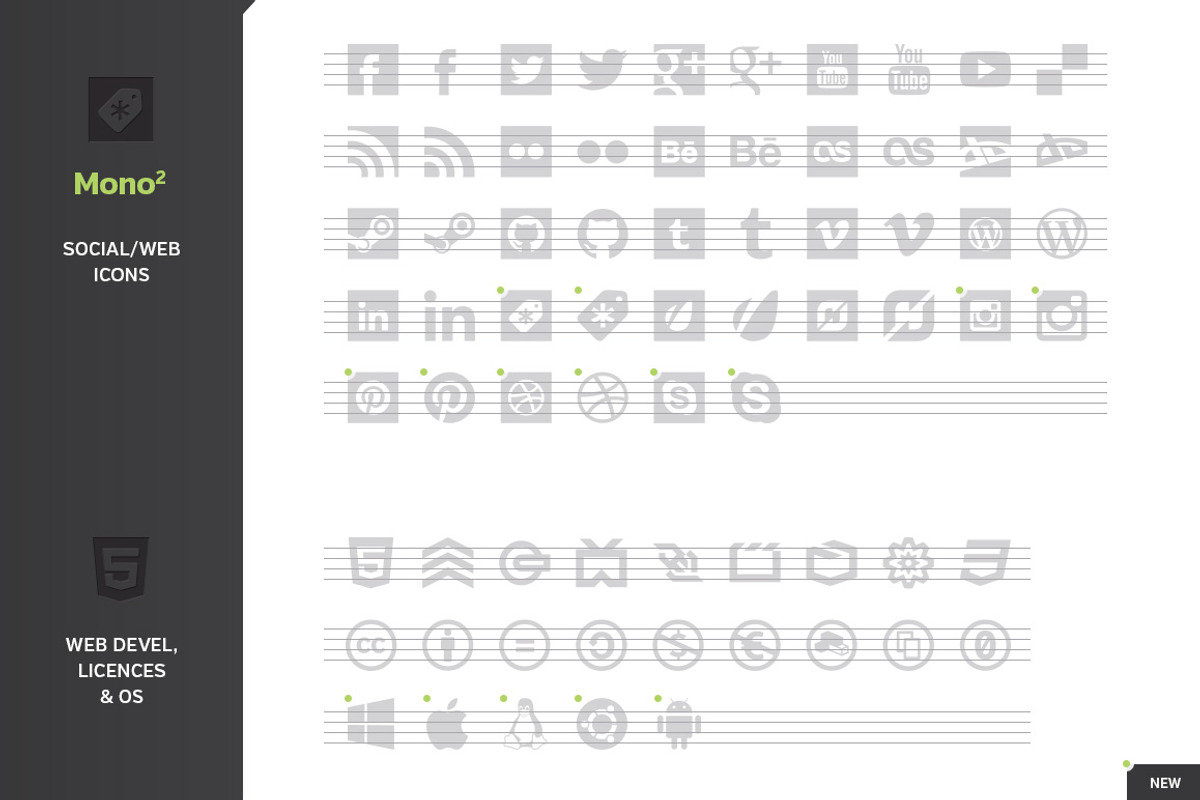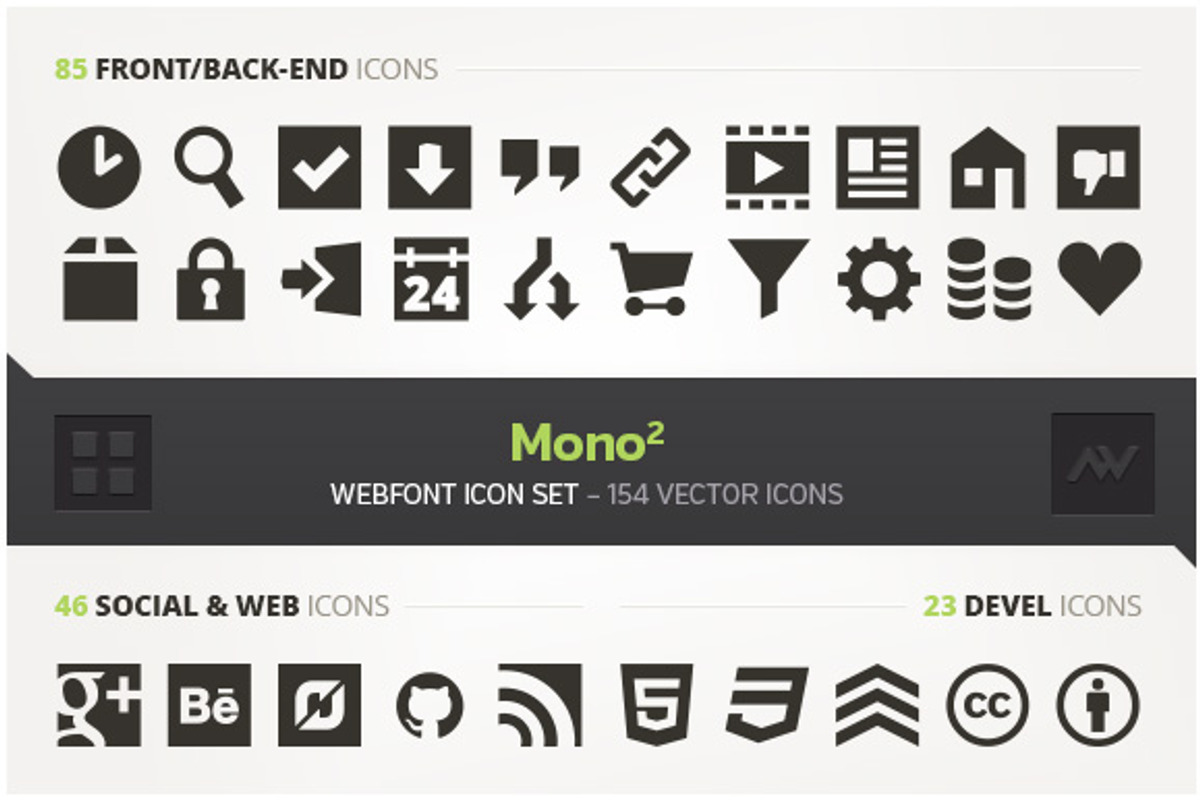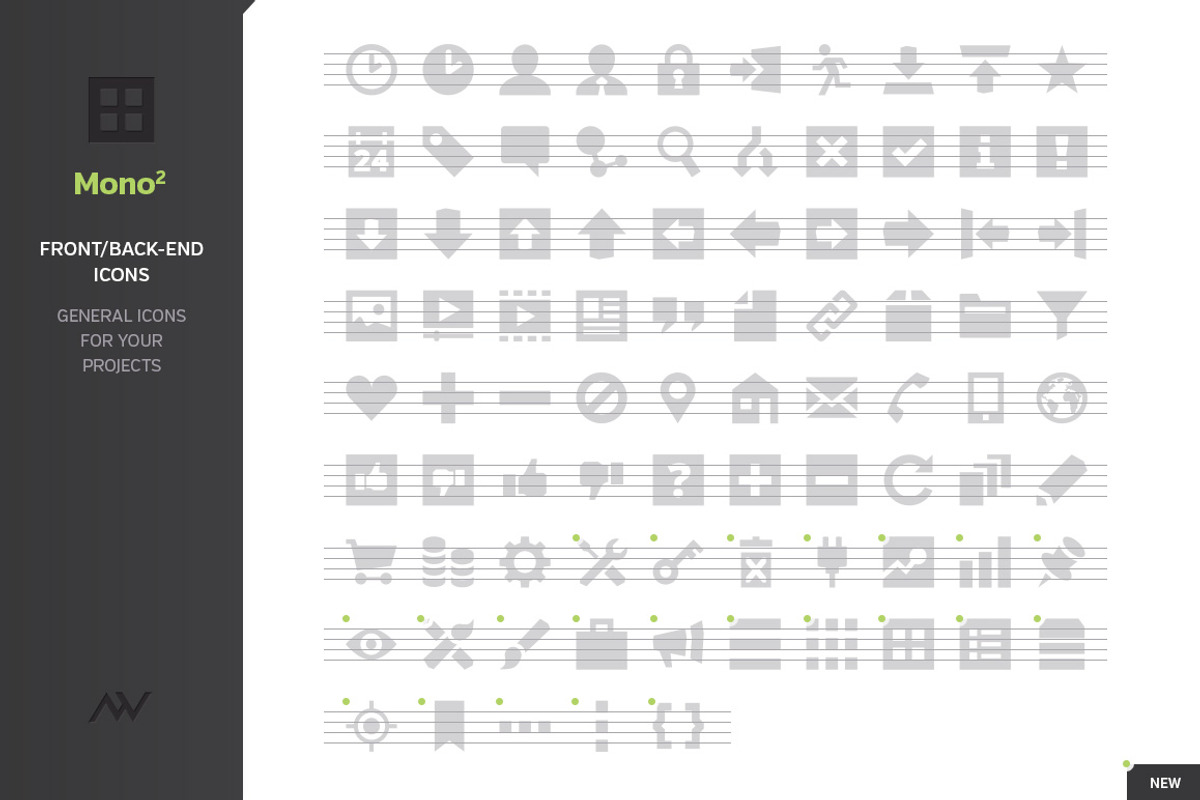
Mono2 – Webfont Icon Pack
Presenting Mono² — 154 monochromatic vector icons available in various formats to fit your needs. Minimalist style, sharp shapes, actually useful icons, no bloat.
Mono² icons are categorized in three groups: • General icons (basic icons for websites and blogs) • Social & Web (featuring most favourite social networks and websites) • Web Devel (HTML5 badges), licences (CC) & OS
Some icons have alternative versions.